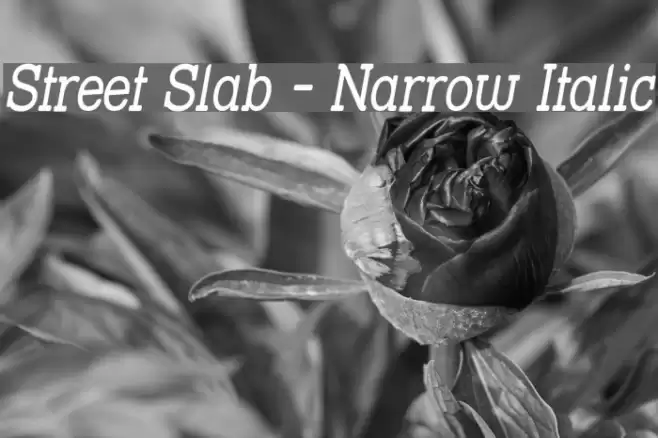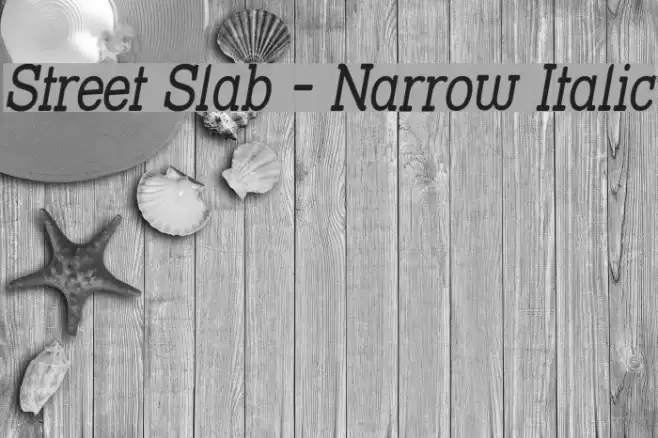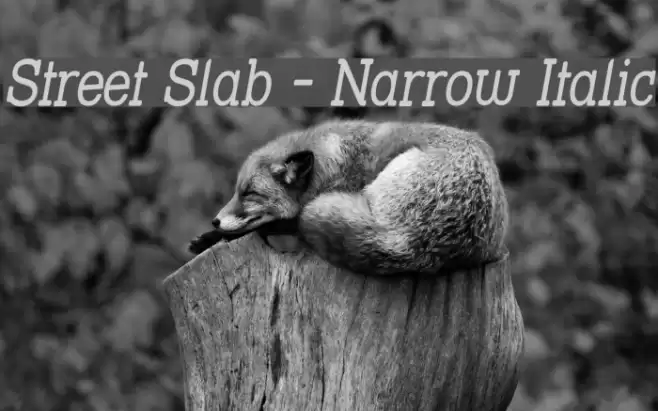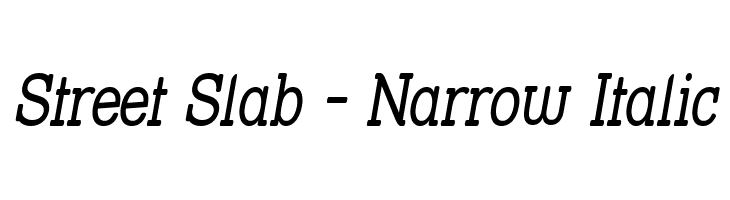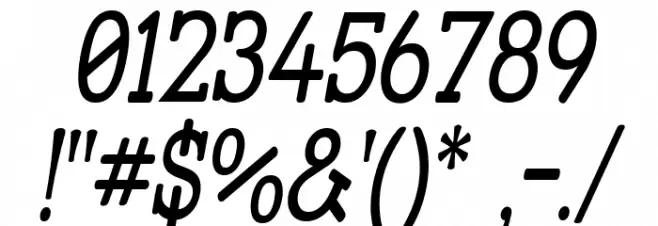
Street Slab - Narrow Italic Font
Street Slab - Narrow Italic Description
This font features a distinct slab serif style with narrow proportions and an italic slant, giving it a dynamic yet structured appearance. The uppercase letters are bold and commanding, while the lowercase letters maintain a consistent flow with slightly rounded edges. Numbers are clear and legible, making them suitable for various applications. The special characters are well-defined, ensuring versatility in design projects. The italic nature adds a sense of movement and elegance, making it ideal for creative and modern designs.
A narrow, italic slab serif font with a dynamic and structured style from Uncategorized fonts.
- Proposed Projects: Ideal for branding, editorial design, and advertising where a modern and elegant touch is needed.
- Use Case: Headlines, Logos, Editorial Design